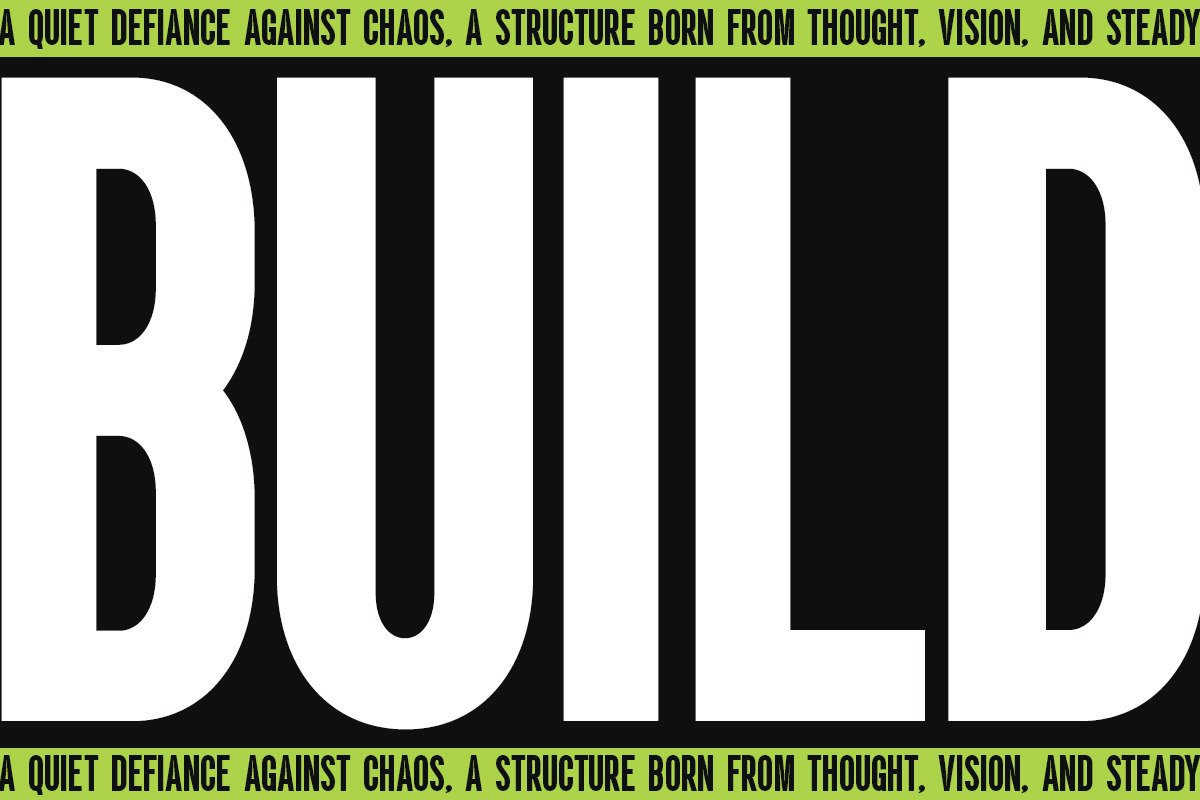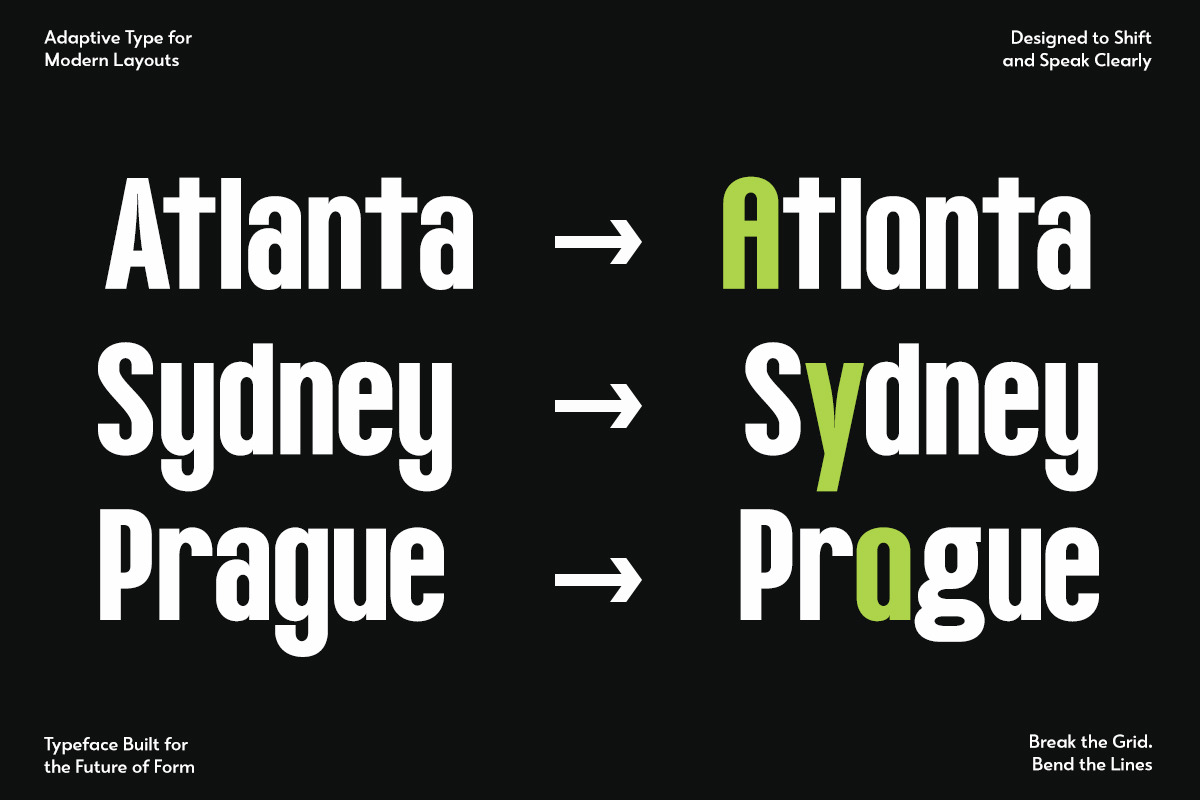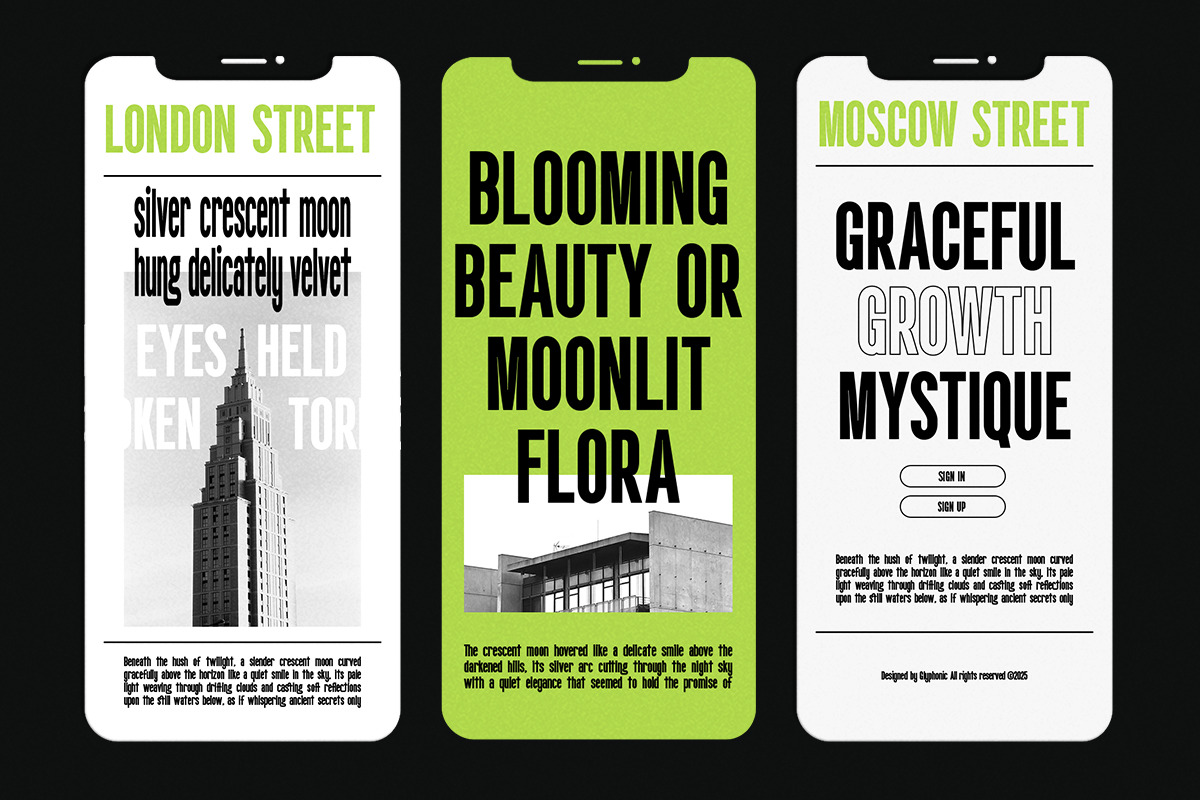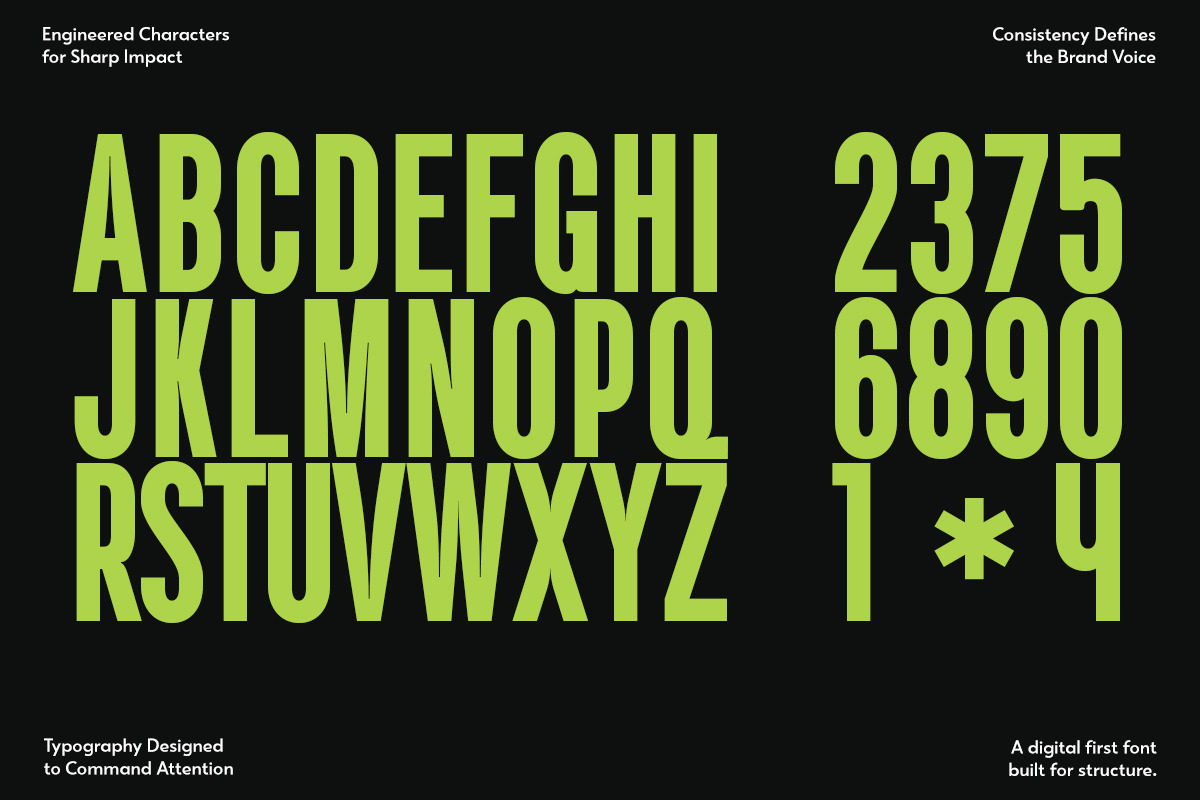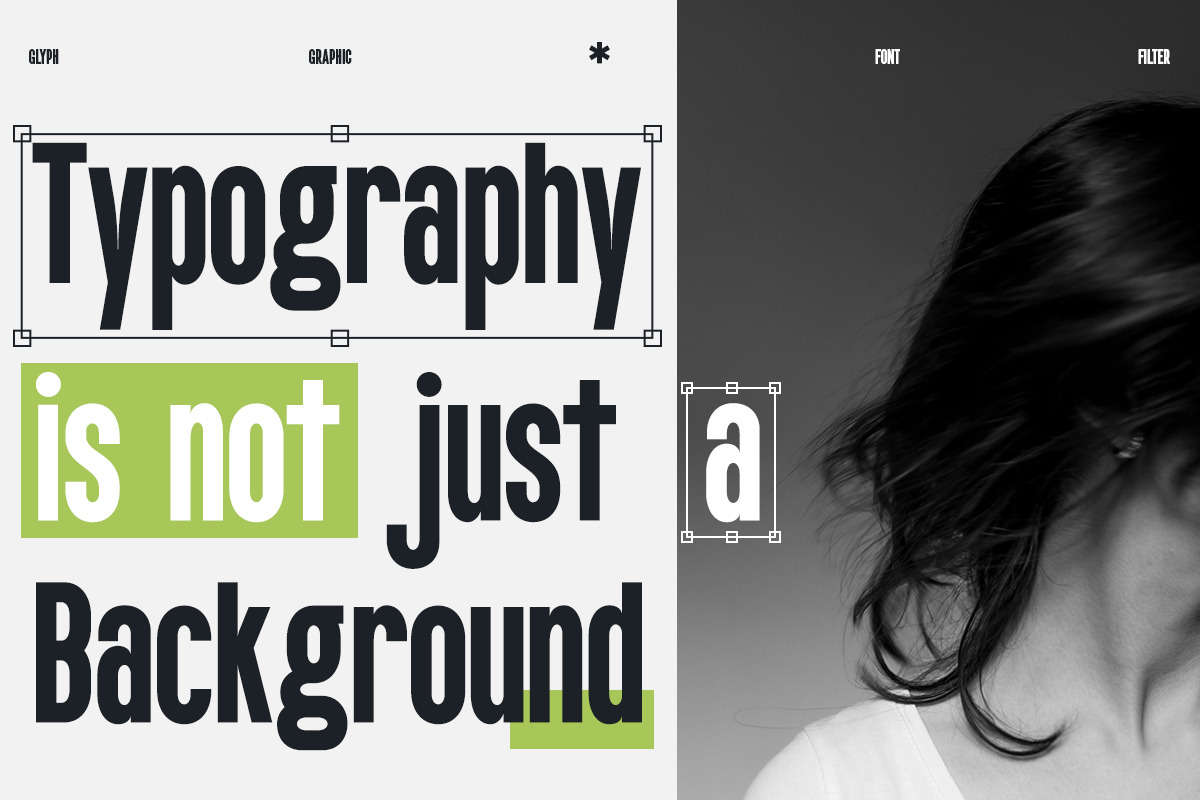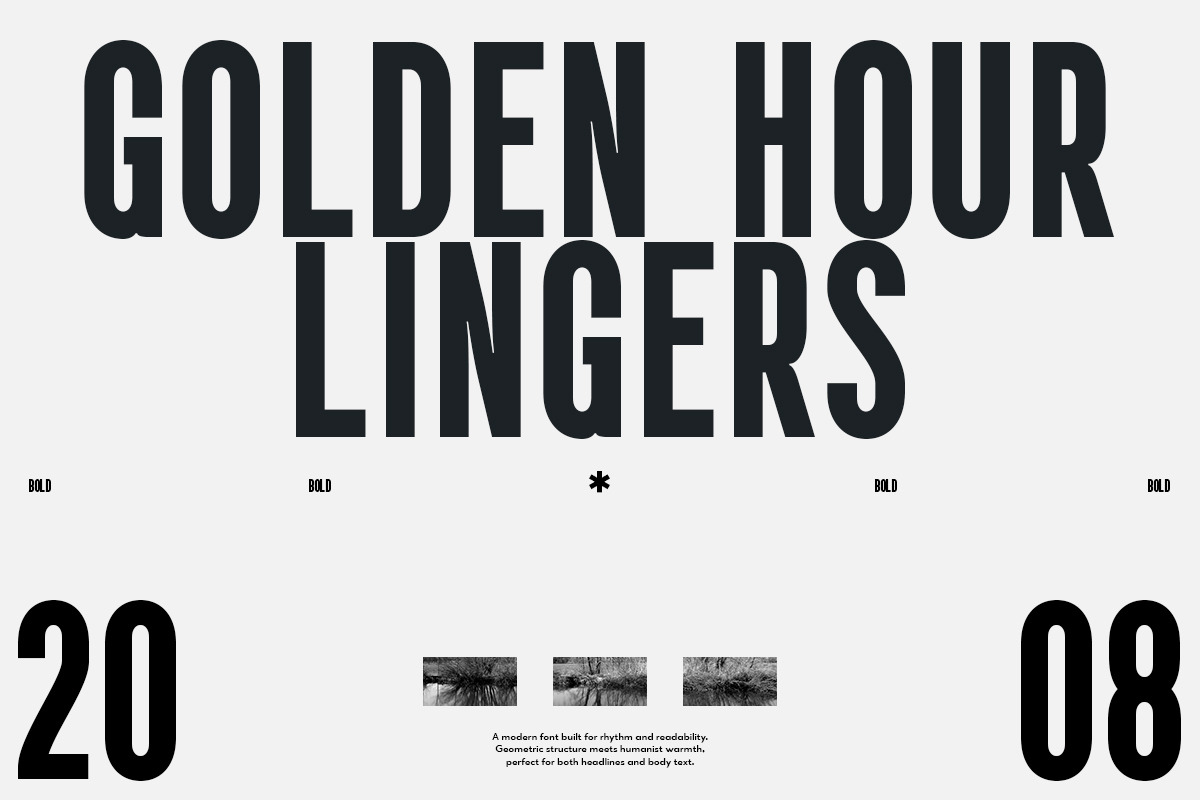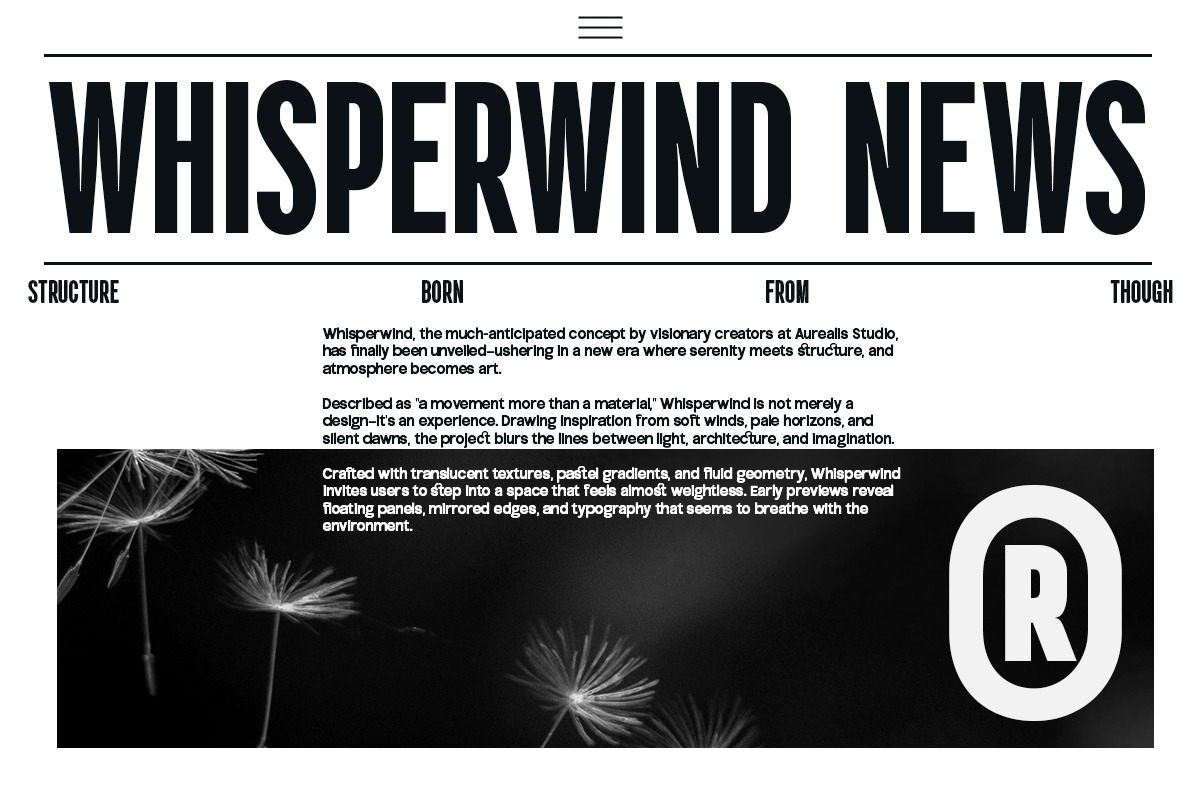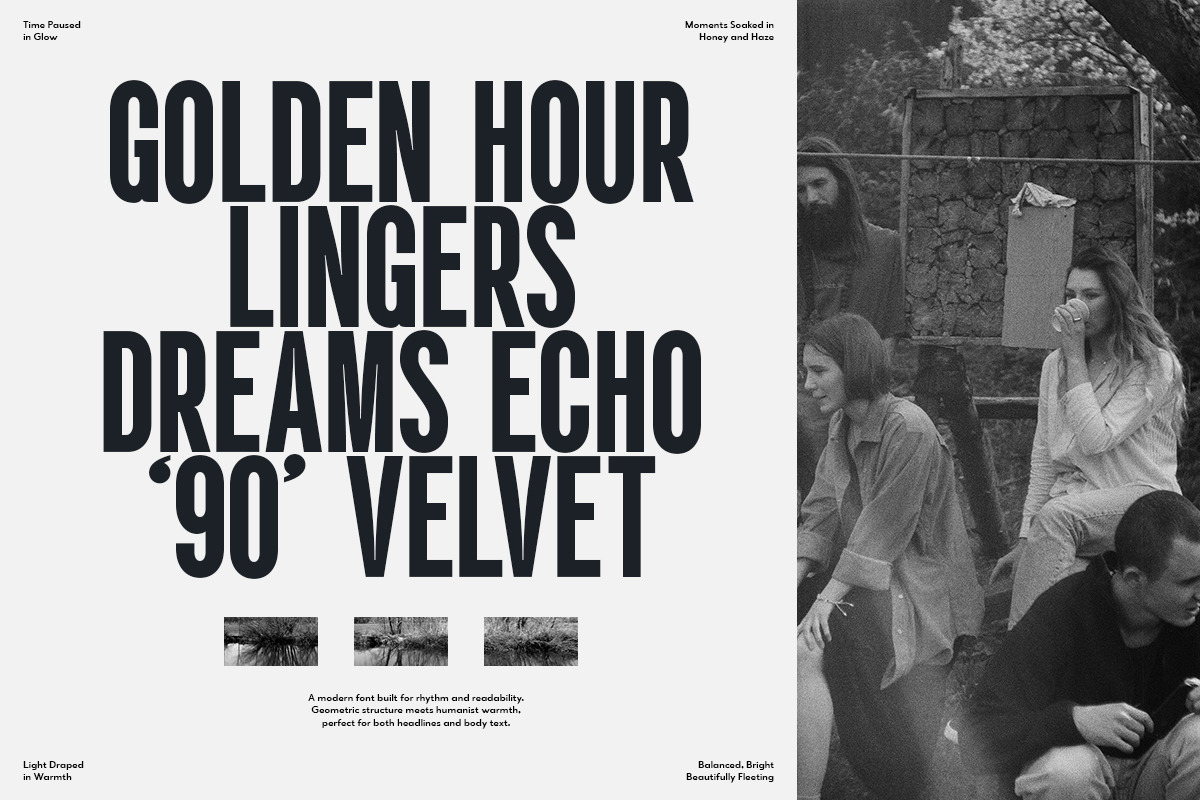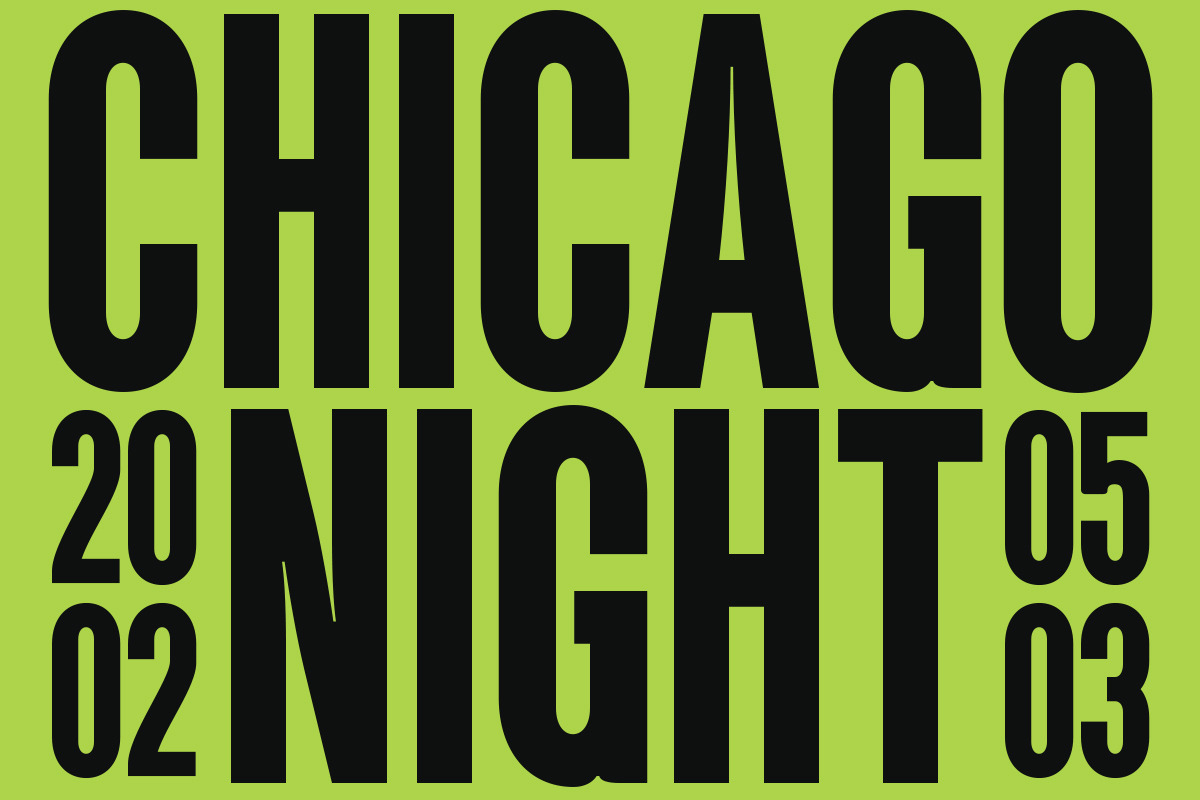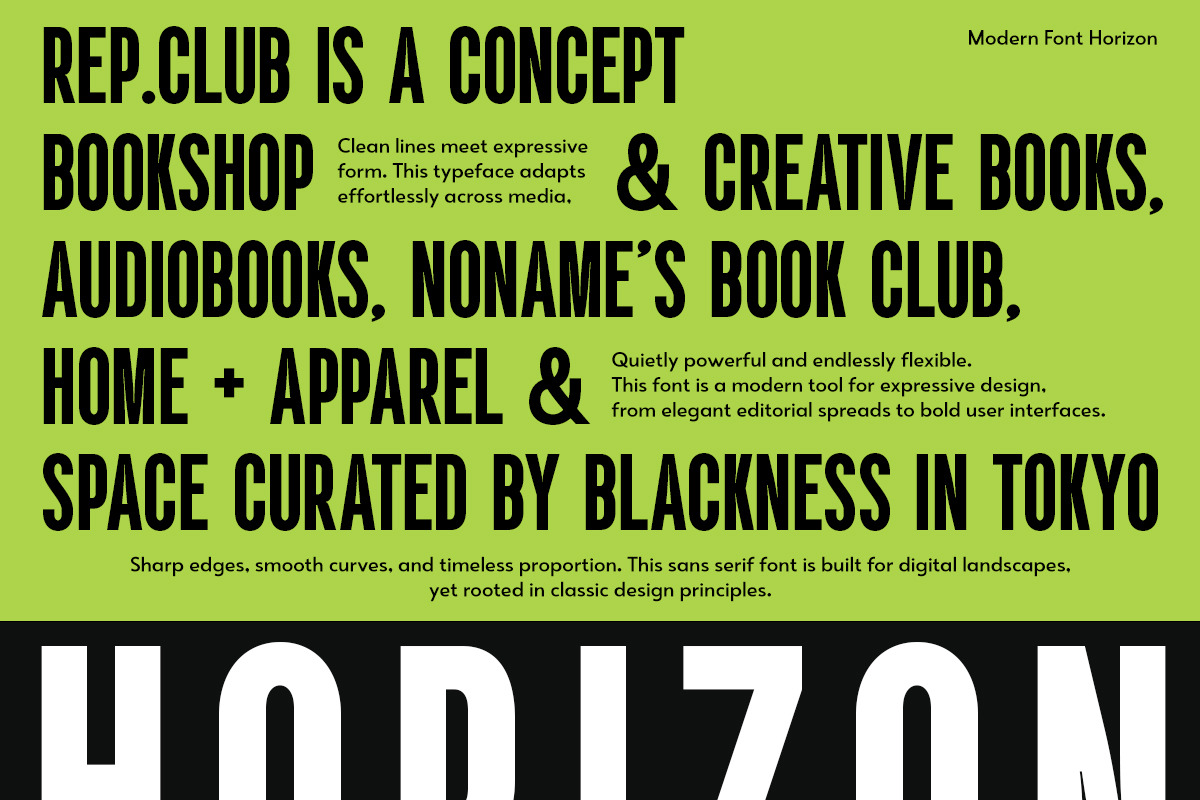
GC Horizon - Modern Bold Condensed
GC Horizon - Modern Bold Condensed Font that blends modern Bold with Edgy style. Perfectly suited for headlines, branding, logos, packaging, editorial layouts, it’s crafted to leave a lasting impression.
With its high contrast strokes, modern sans, and future style, GC Horizon brings personality and sophistication to any design. Whether you're designing for fashion, lifestyle, or artistic visuals, this typeface offers versatility and refined style.
Make your design bold, refined, and timeless with GC Horizon.